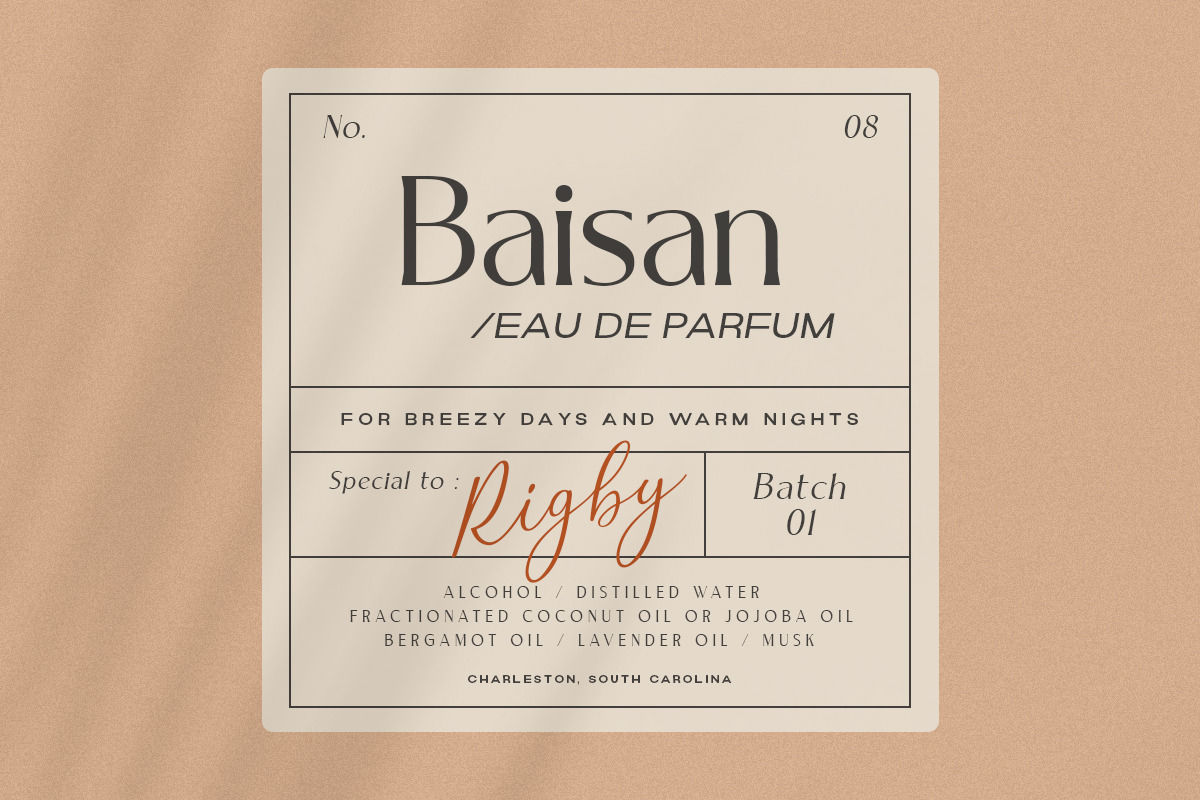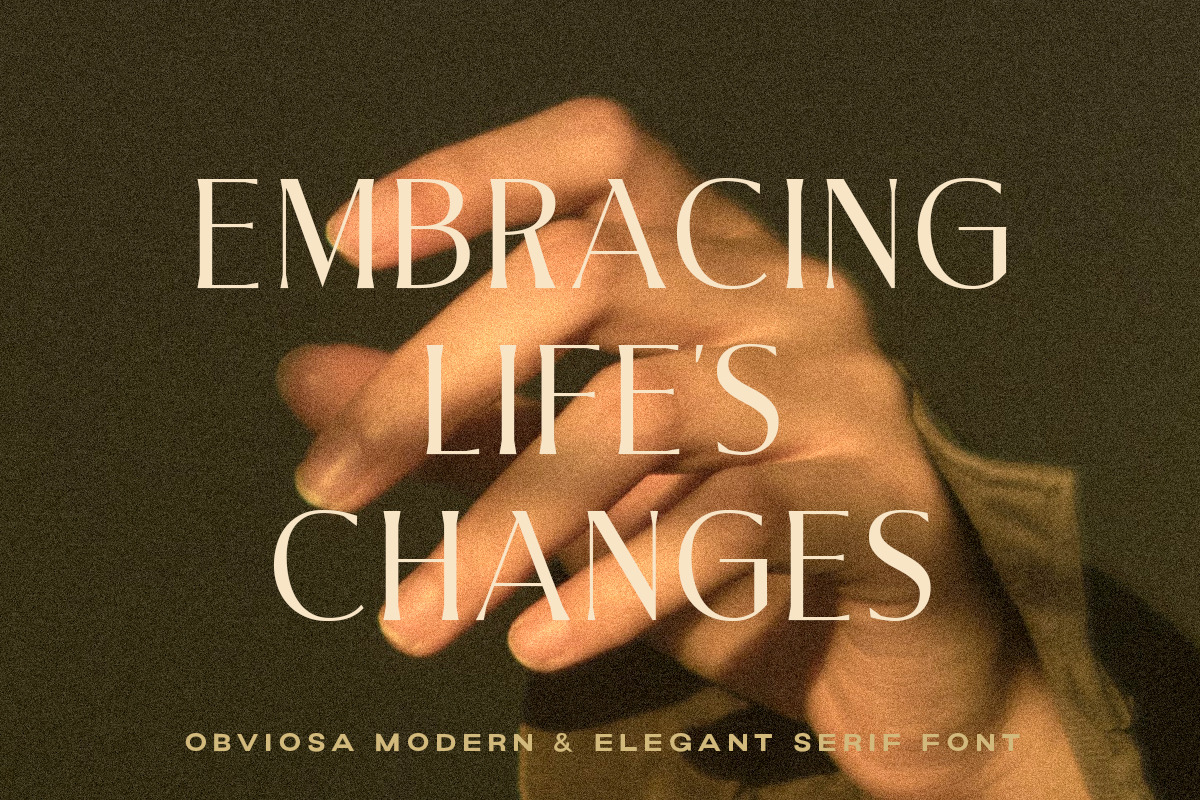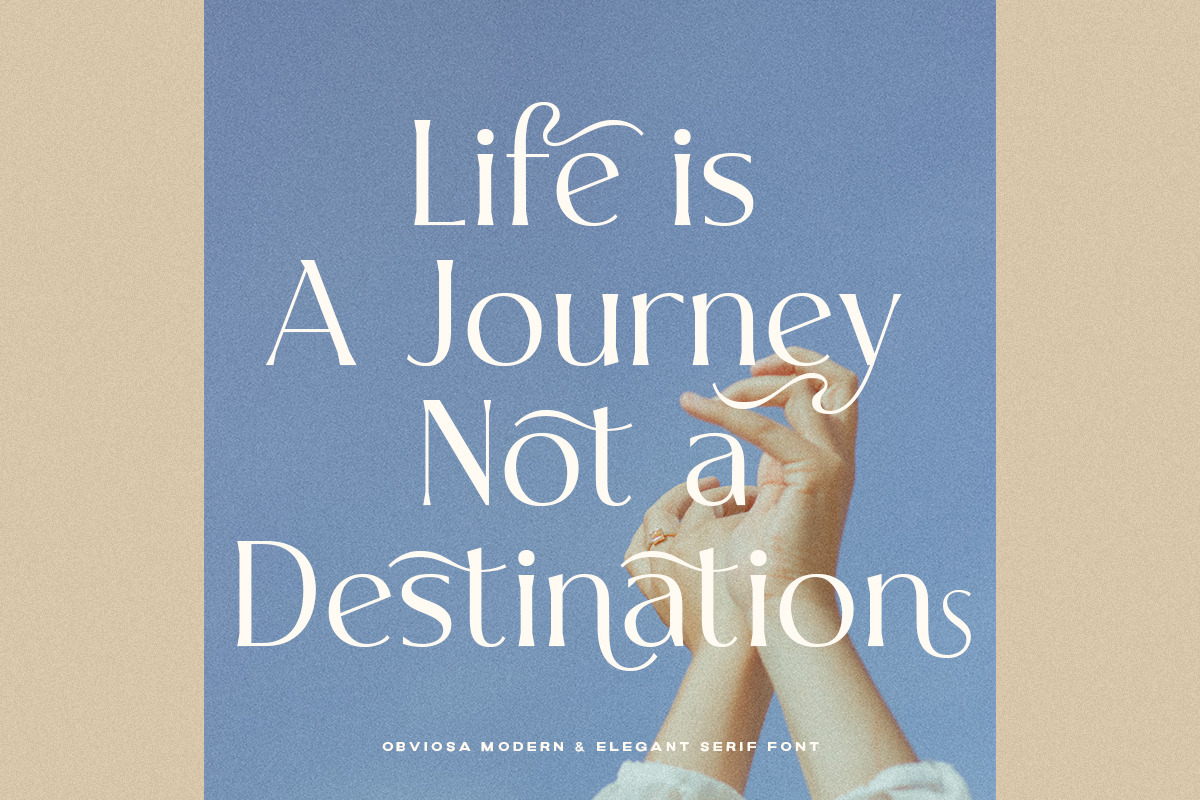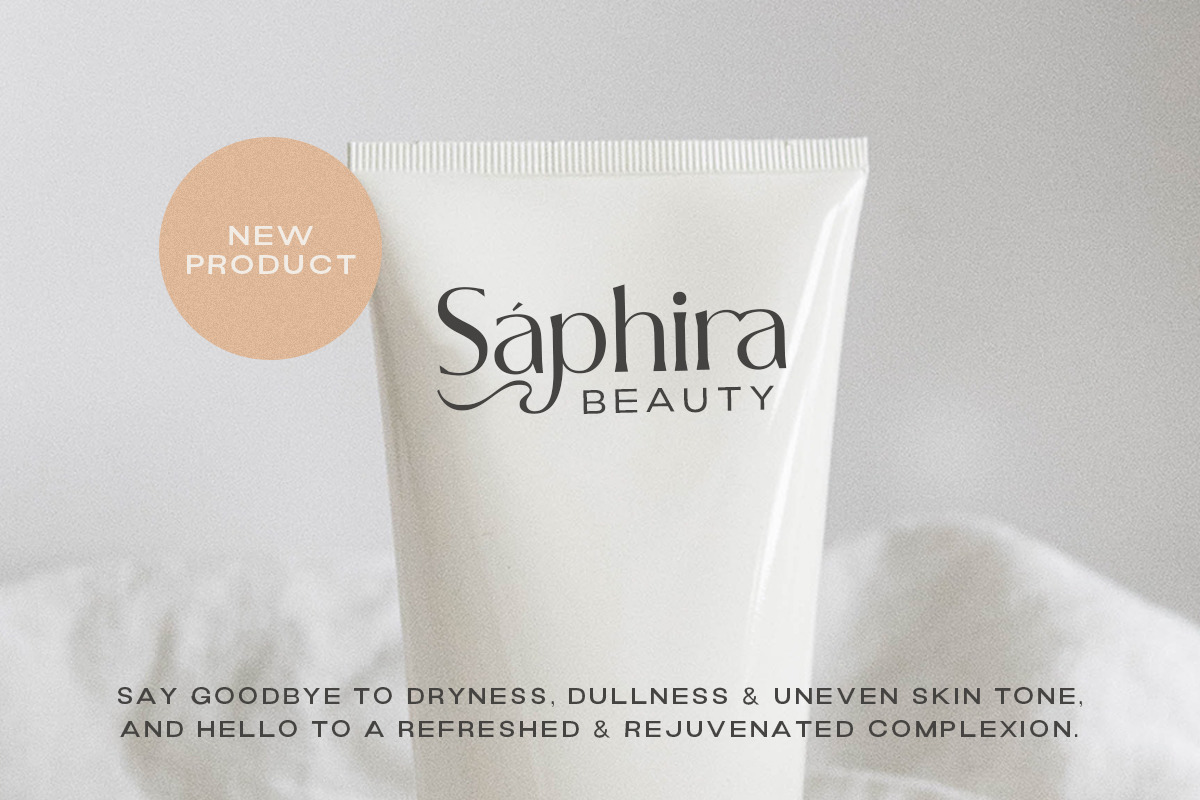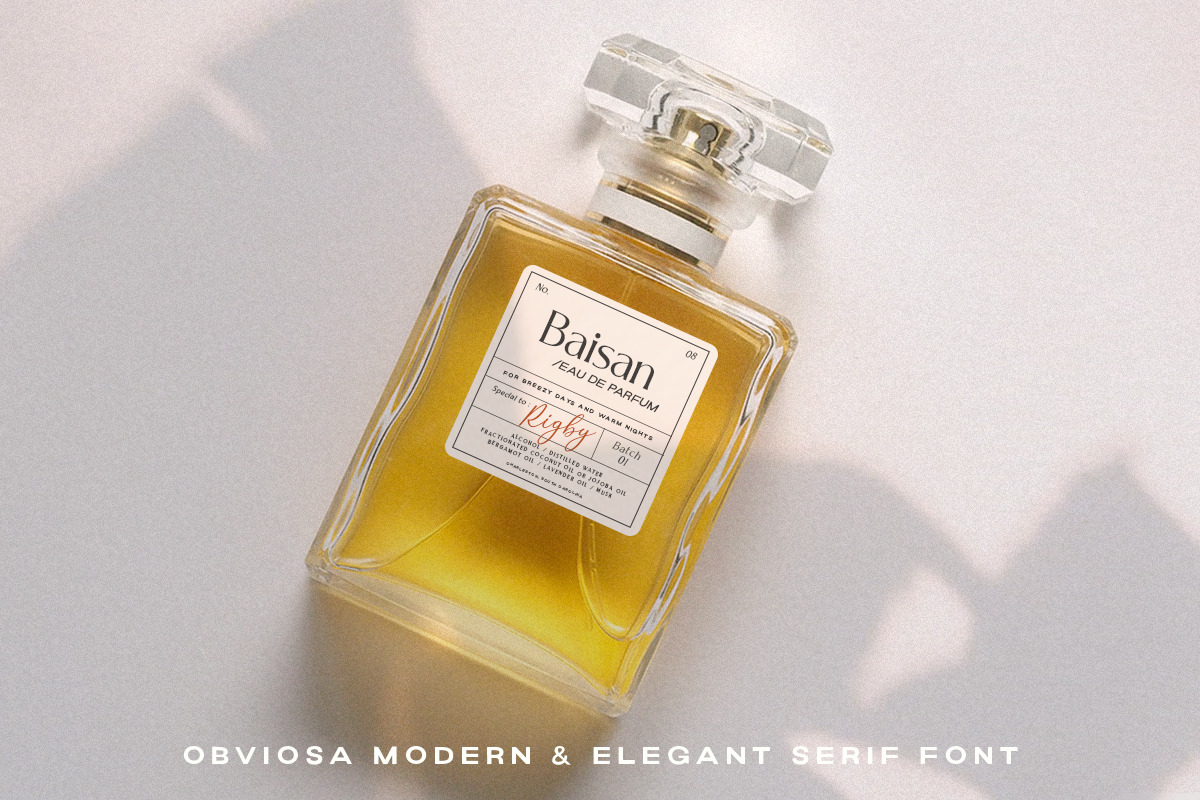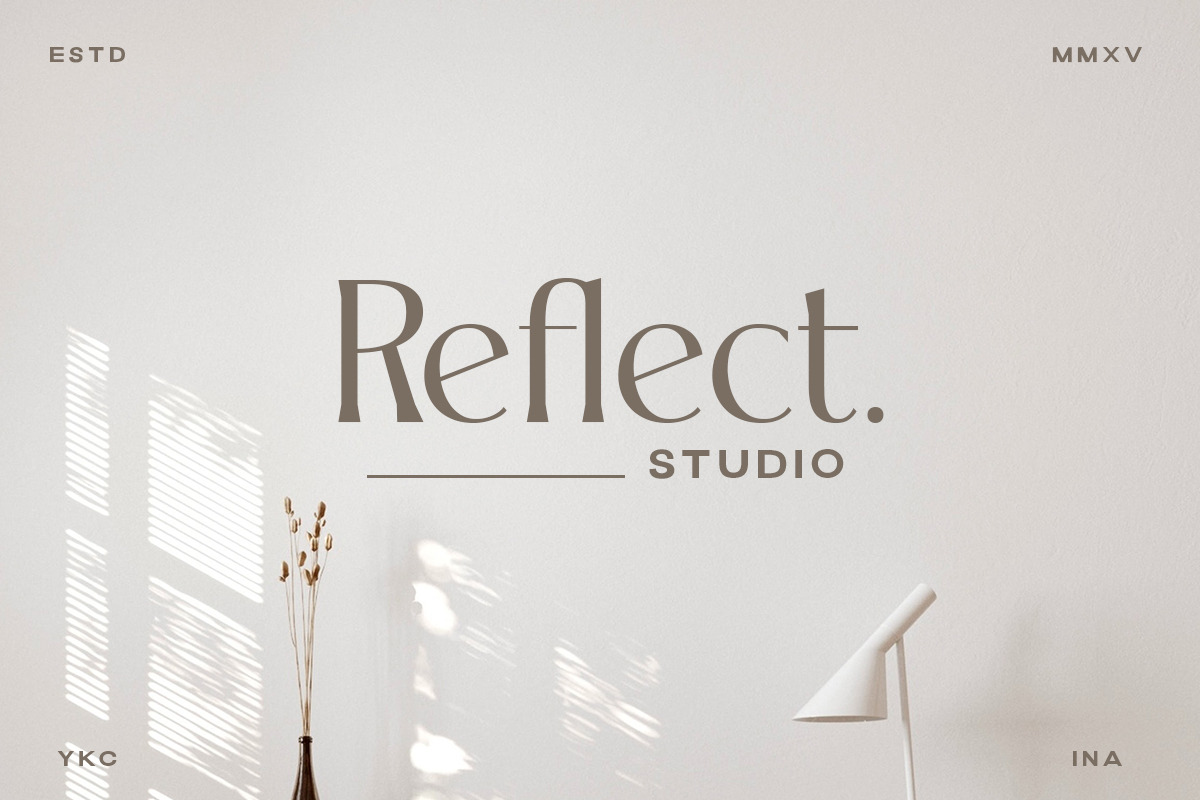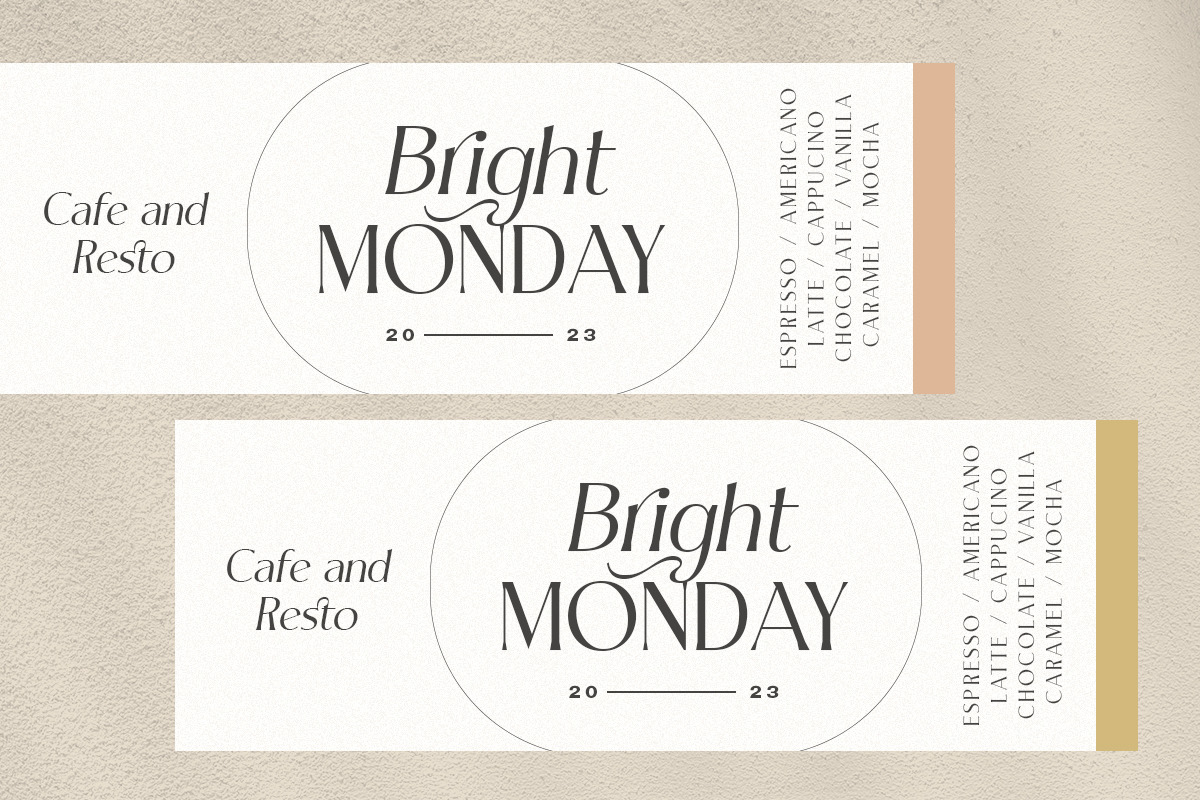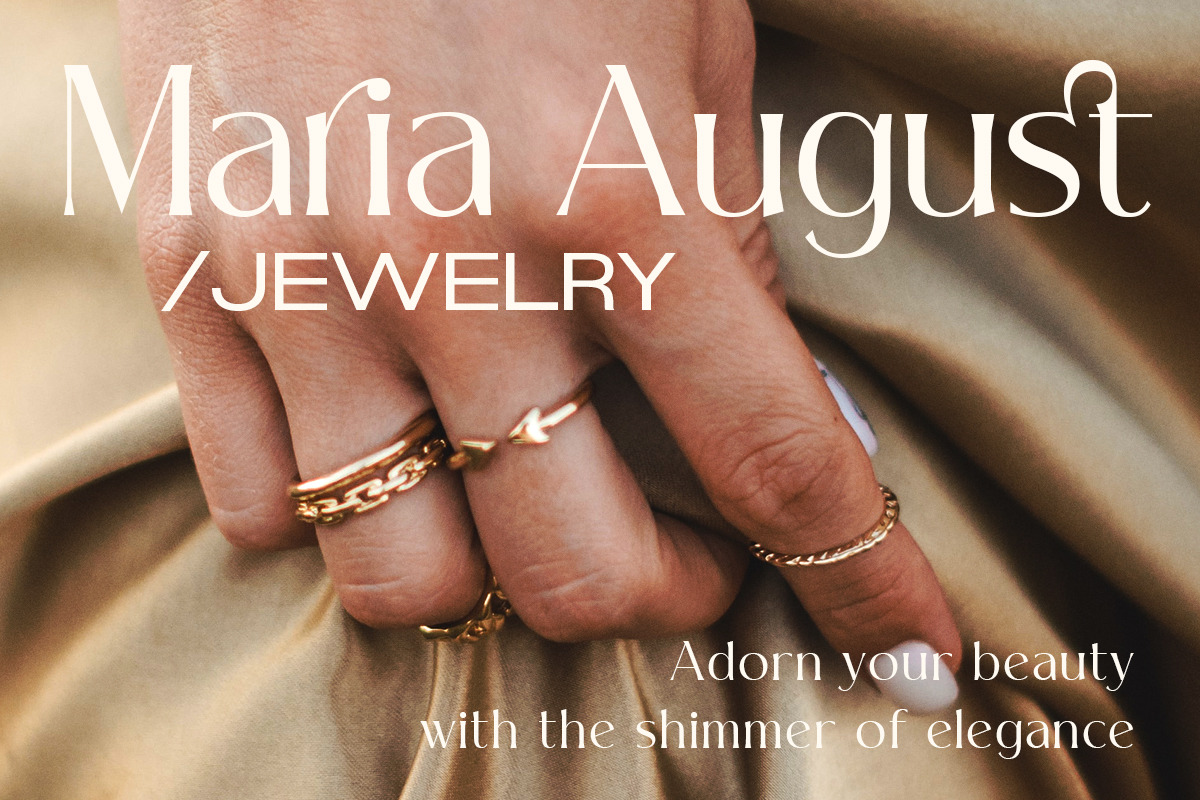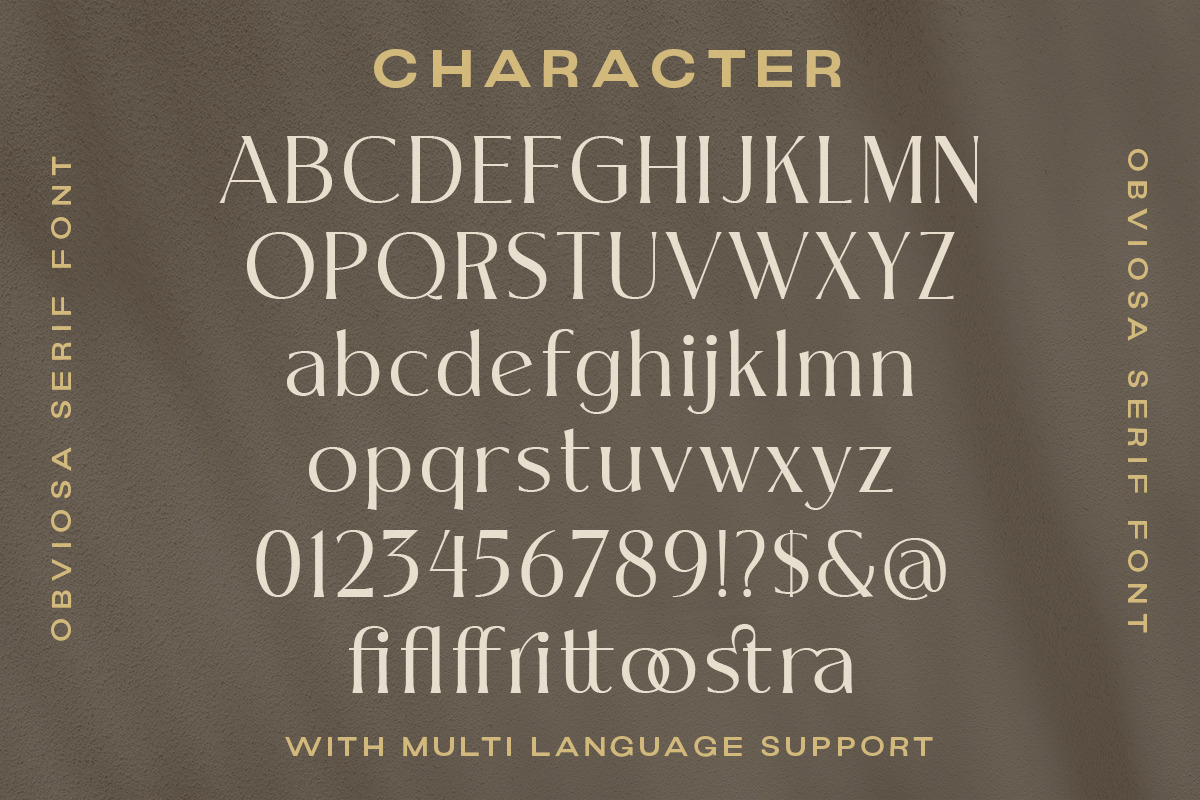
Obviosa - Modern Serif
Obviosa is a serif font that is both chic and modern. With slim strokes create a sense of elegance that is perfect for upscale design projects. Whether you're creating a wedding invitation or a business presentation, Obviosa will add a touch of refinement and class.